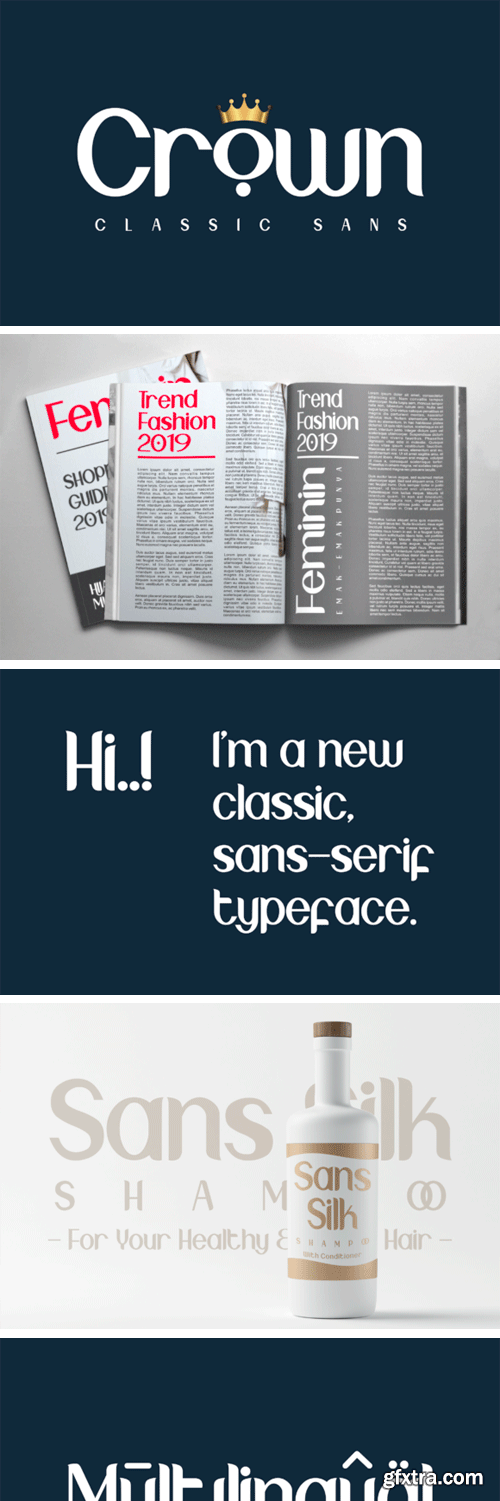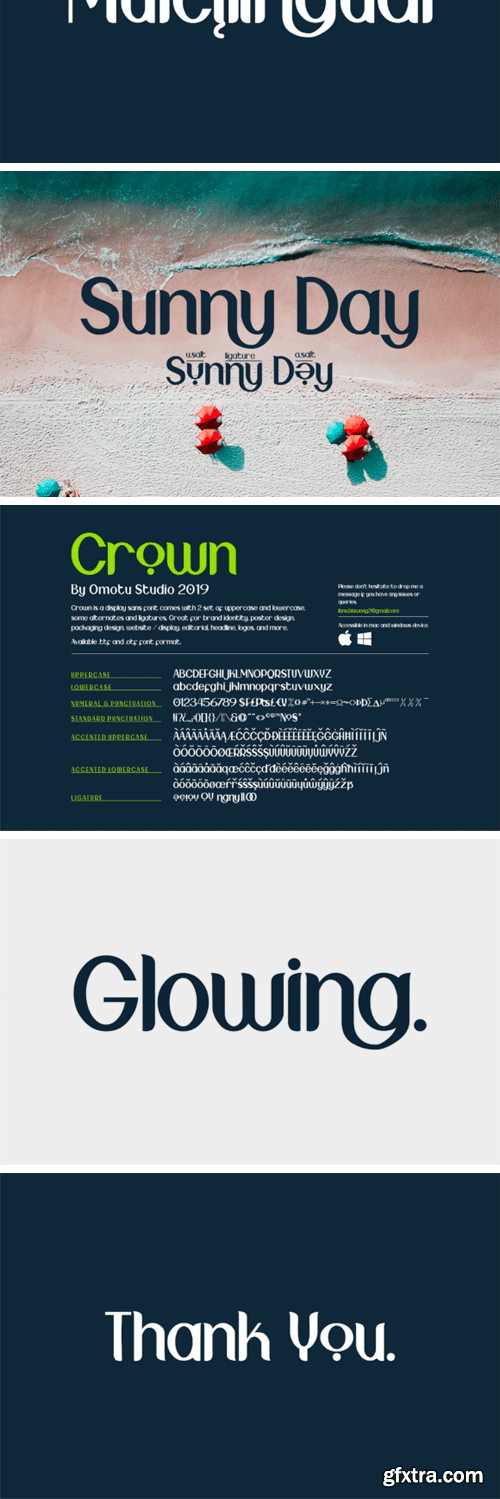
Crown Font
The Crown is a striking sans font. It has a modern, clean style and a great readability. It’s great for brand identity, poster designs, packaging designs, website / display, editorials, headlines, logos, and more.